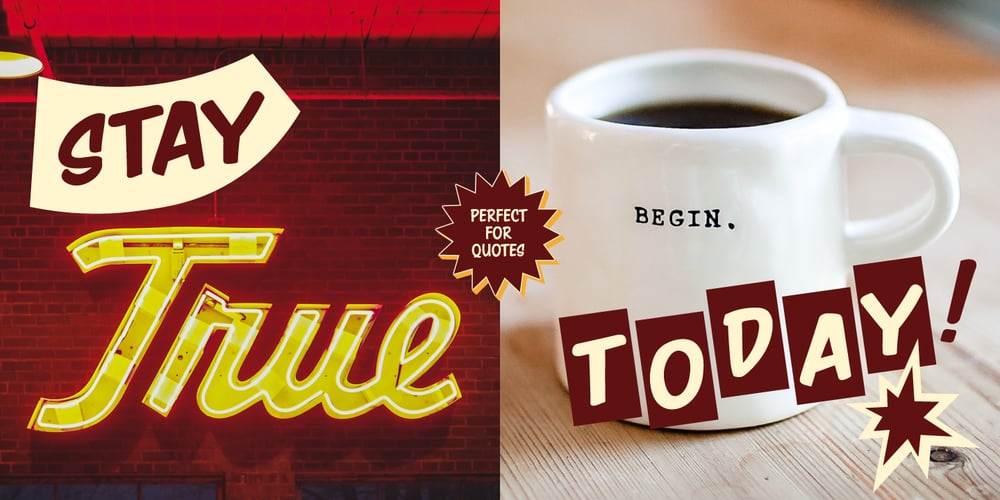
Casual Crew Font Family was designed by Marie Wagner and published by Learning Kiddos. Casual Crew contains 5 styles and family package options. A fresh friendly font with upper and lower cases inspired by the Casual Style of Sign Painters. It features well-designed curves, four versatile styles (including Regular, Bold, Halftones and Outlines), latin language support and sexy built-in signs and catchwords. Suitable for titles, Branding, package design & more. If you are looking for a fine Hand-drawn font Family with great curves, Casual Crew is what you want.